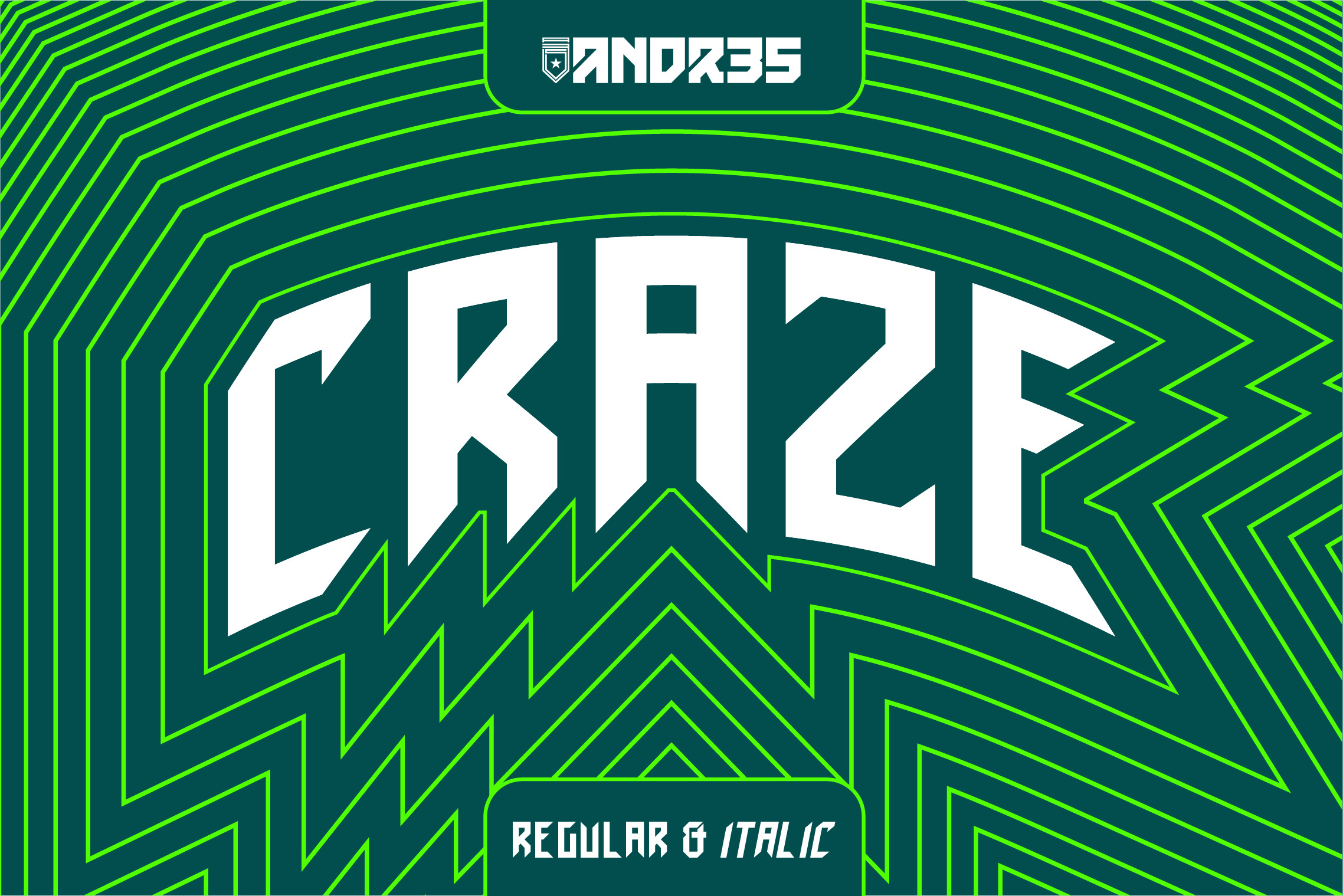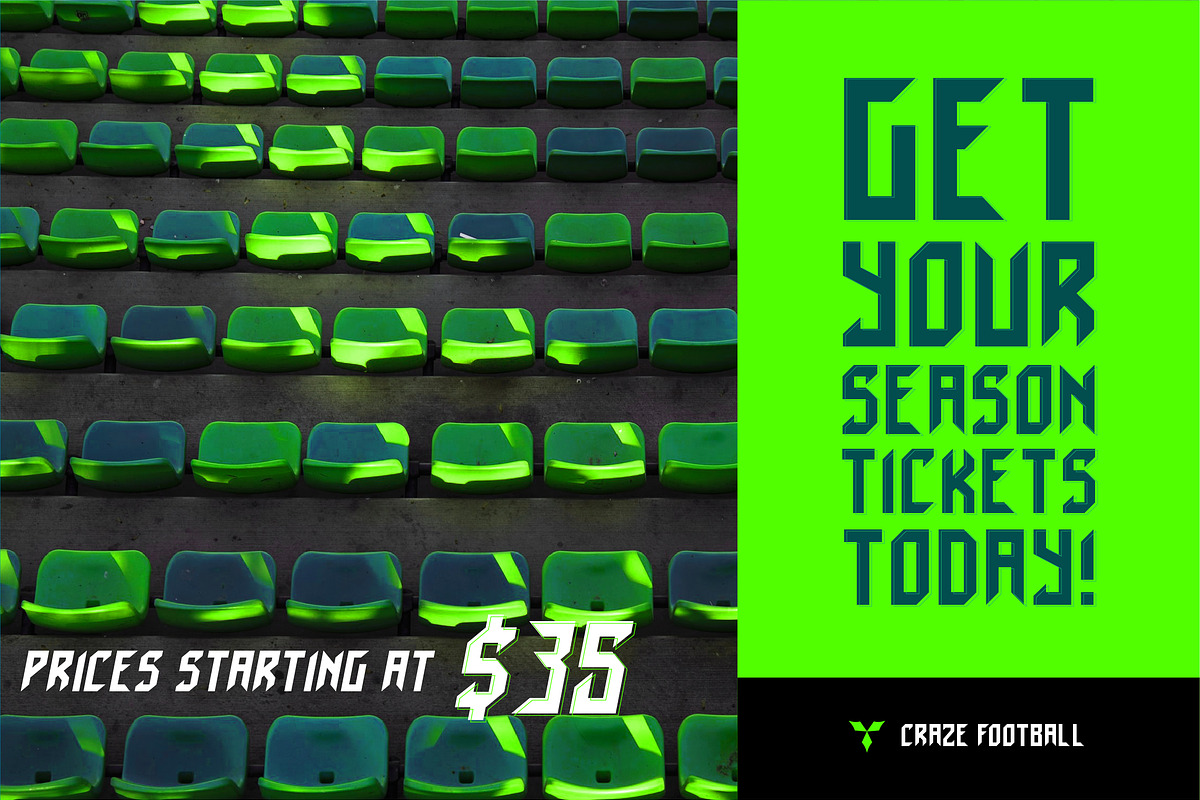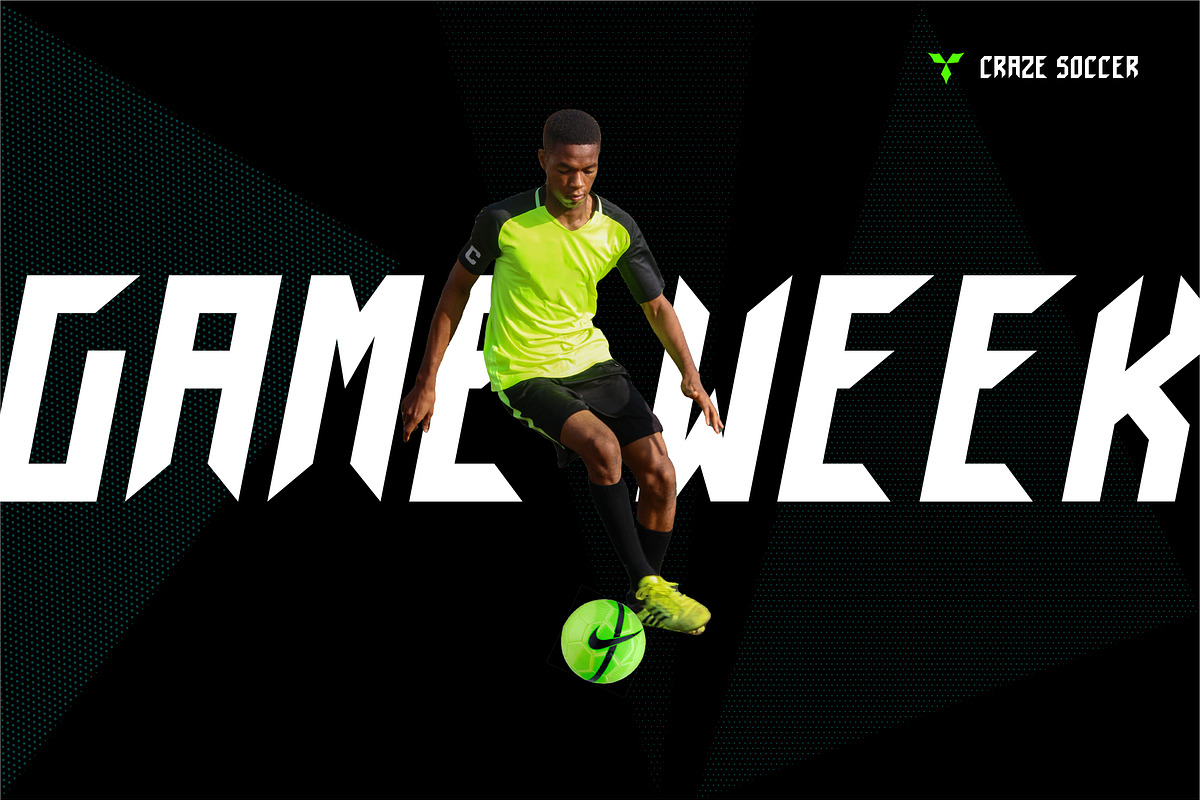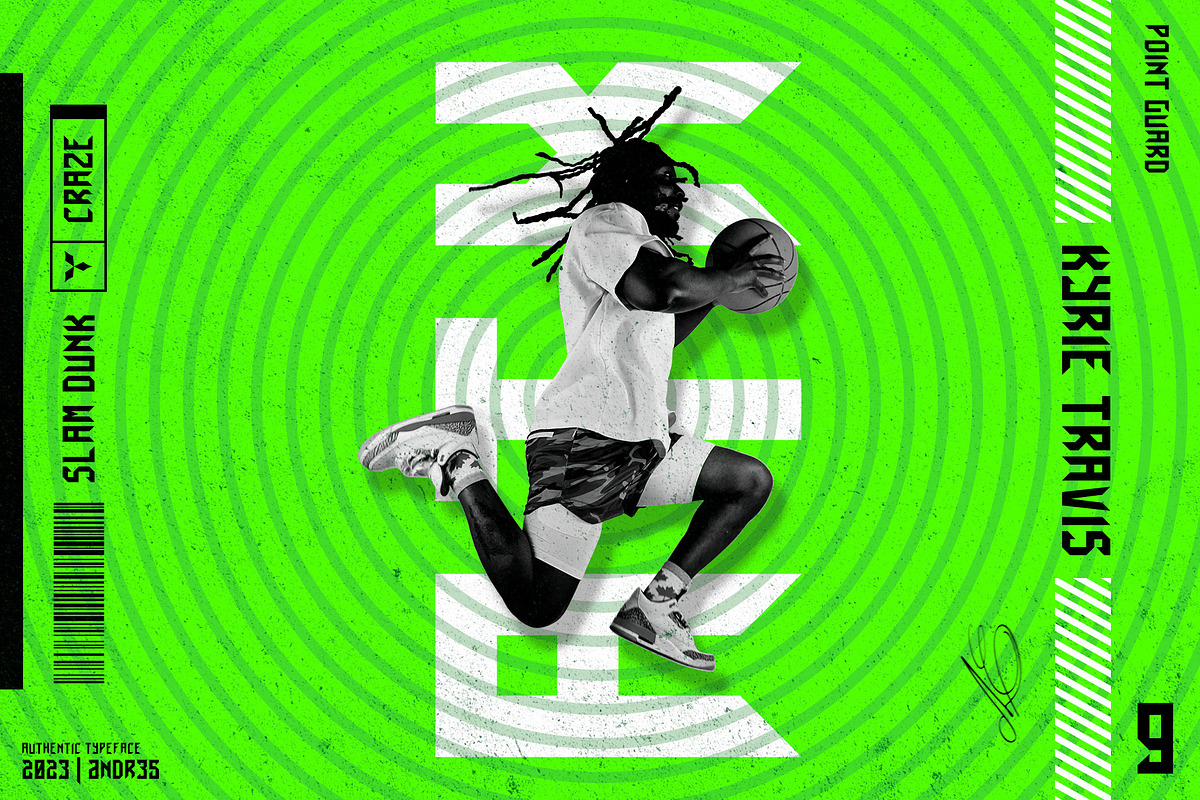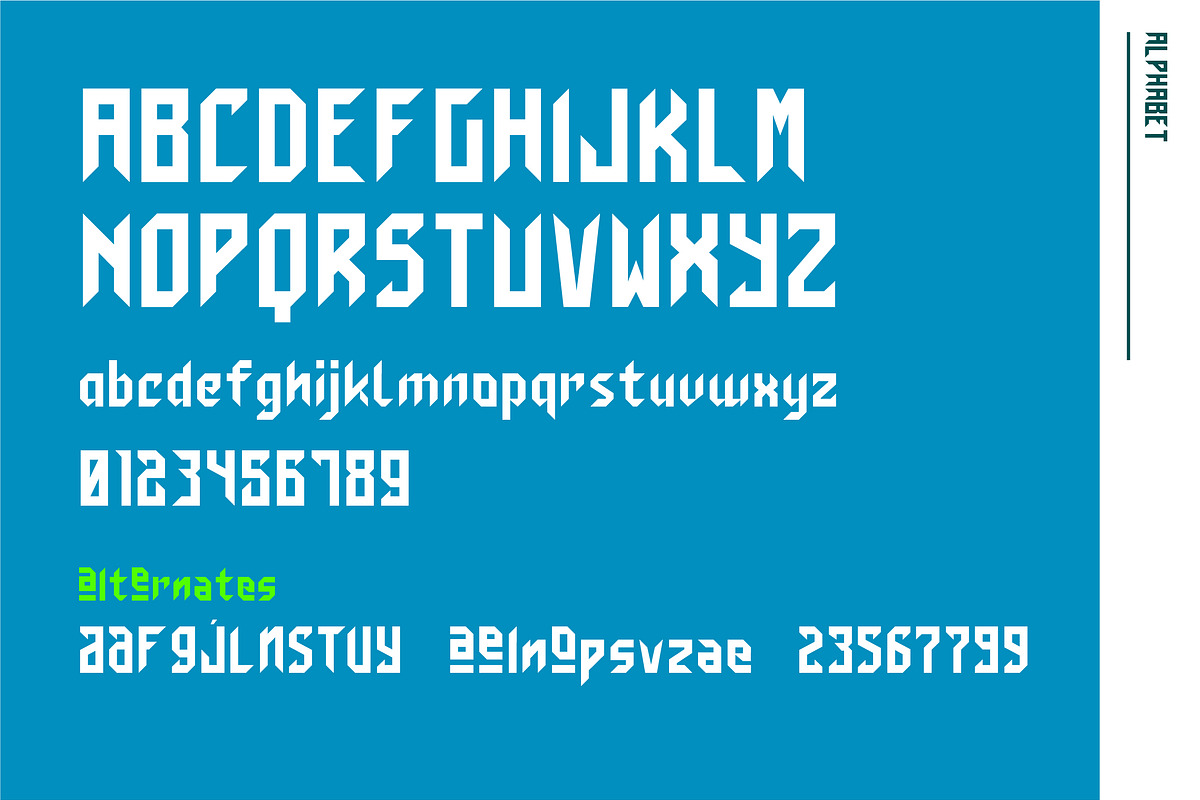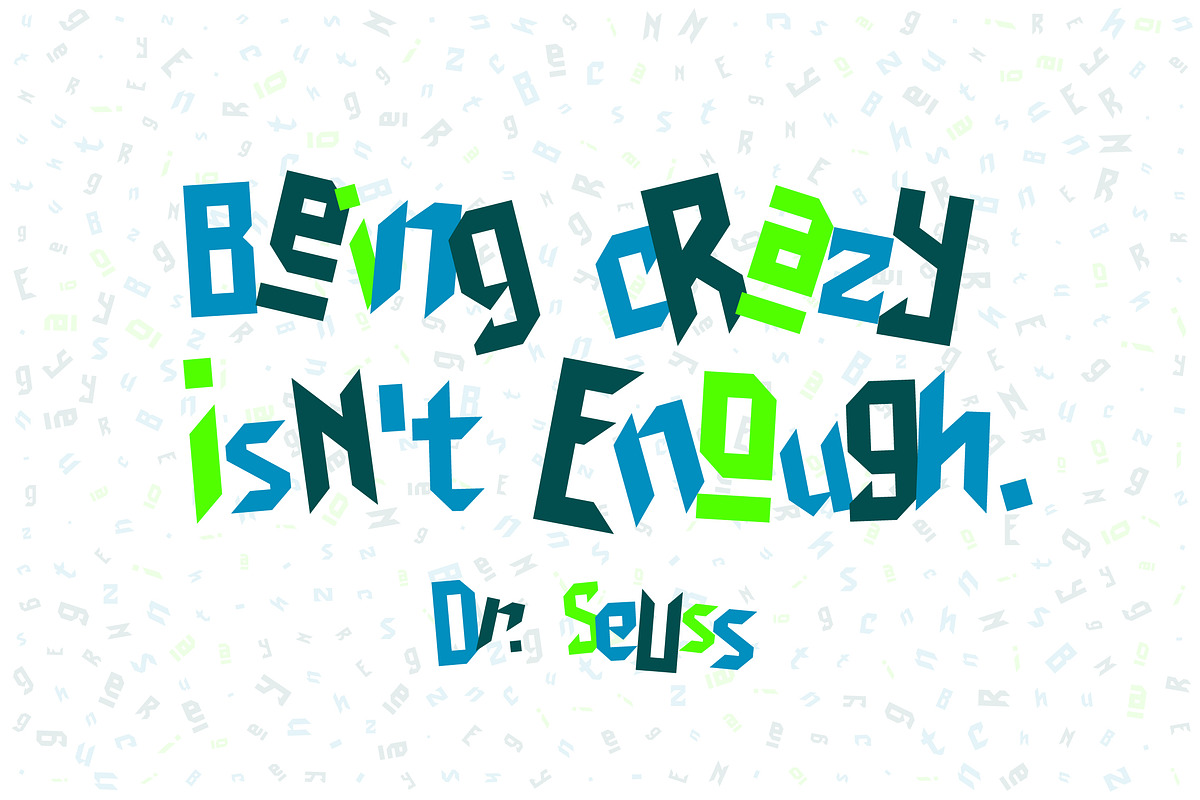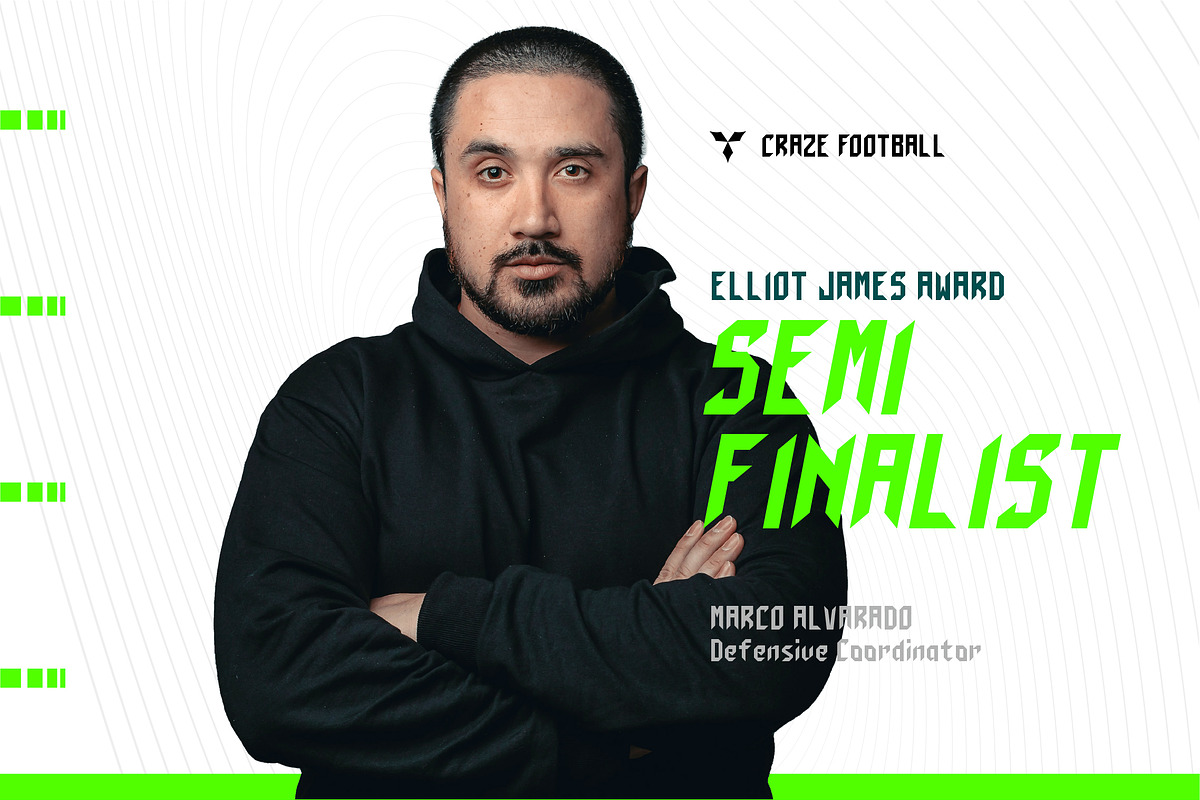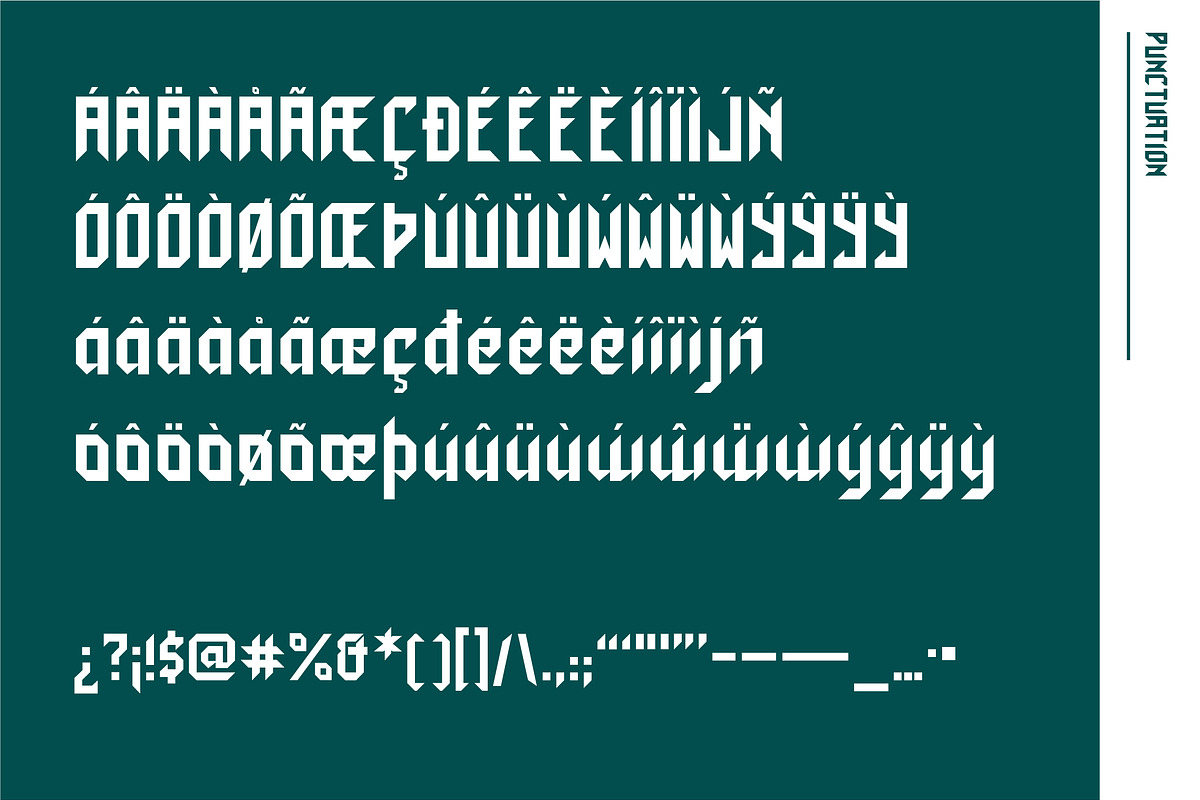
Craze Pro Typeface
Craze Pro was created as a free font for sports designers and their projects in mind. Craze is perfect for sports, apparel, promo and large headline uses. Newly added features like lowercase and italic, greatly expand the versatility of Craze as a more all-around player in the sports designer's type arsenal. Years ago, Craze was a bit of a type sketch that I set out to give away but after seeing the value it's added to others around the world I decided to give it some focus and enhance it for the working designers out there who need a little bit more depth and breadth, so they don't have to make the simple glyphs from scratch.
Inspiration came from sports logo design, pro sports branding and social media imagery. Updated with added punctuation, it's more than just your basic A-Z/0-9, which means you can use it for more pieces, such as social media, ads, game programs, etc.
New Features Include
- 2 fonts (Regular and Italic)
- limited Alternate Glyphs (Mix things up)
- Expanded Font Formats (You can use it in more places)
- Basic Diacritics (In case you need to throw down some Spanish/French, etc.)